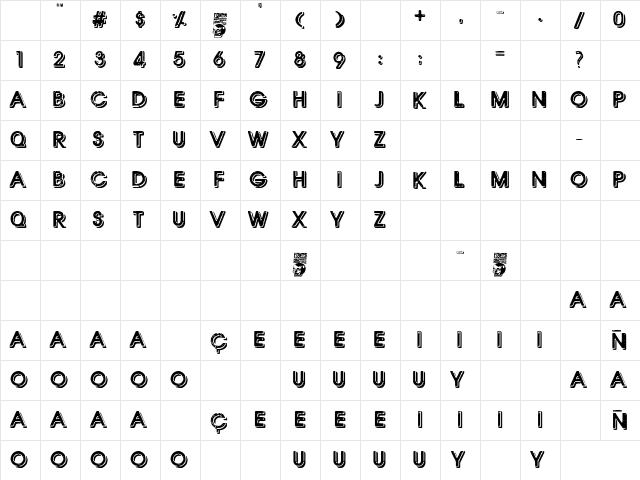
Gameboard Regular
| Designer | Woodcutter Manero |
Design Context for Gameboard Typeface
Gameboard is a composed and adaptable typeface that performs quietly and consistently across a wide range of design contexts.